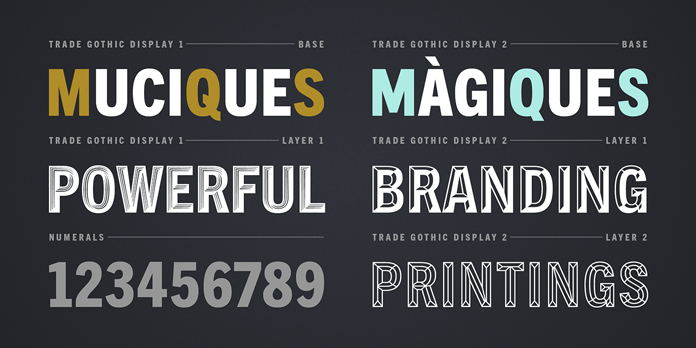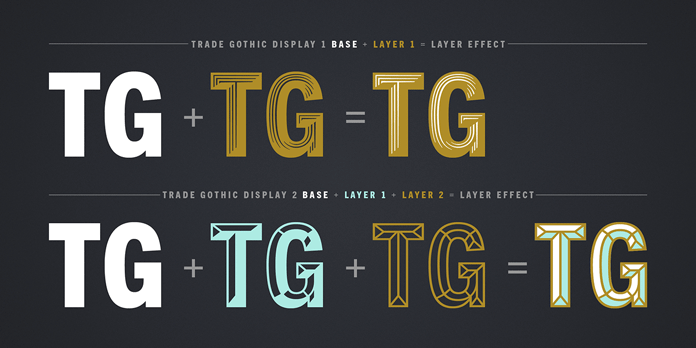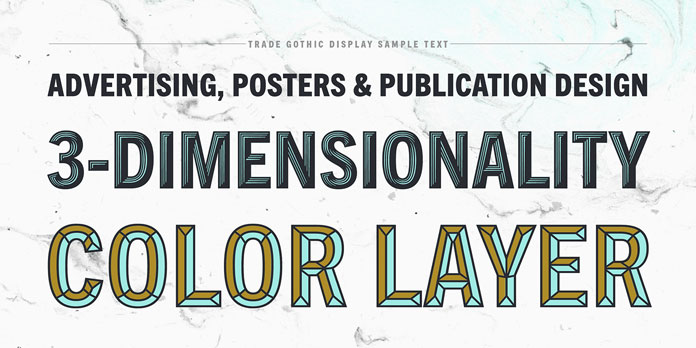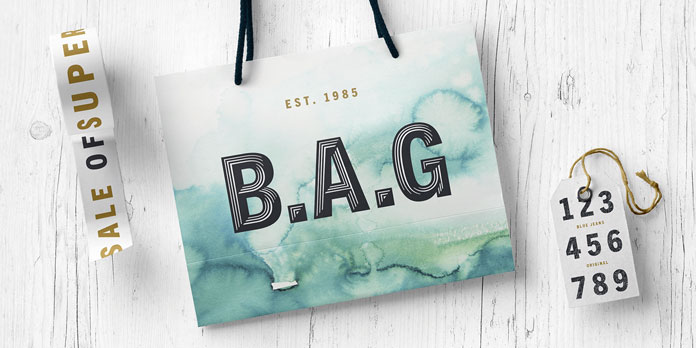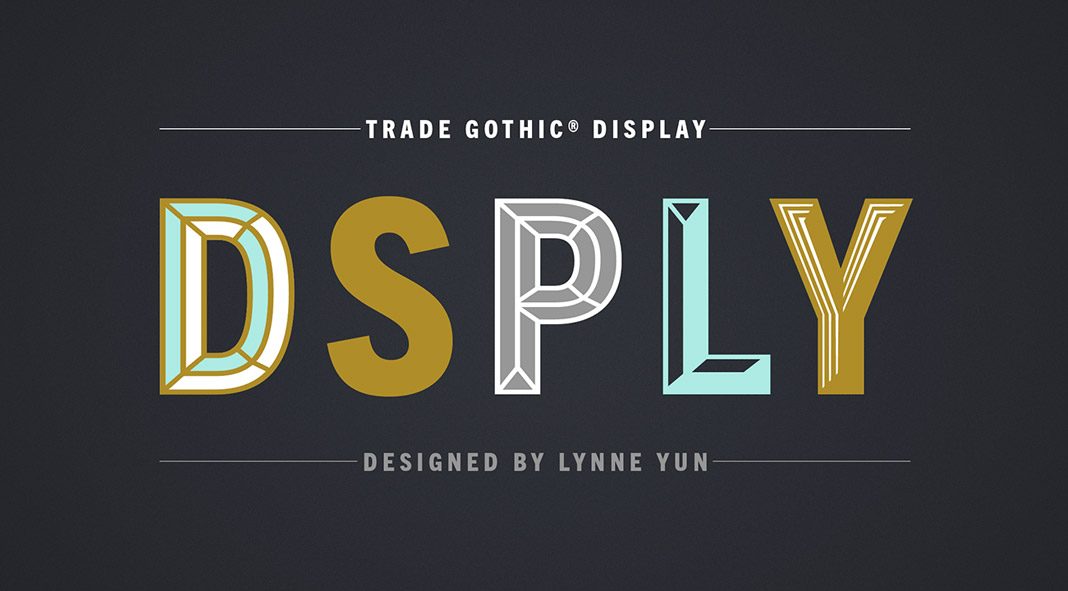
Trade Gothic Display, a lively and compelling font family from Monotype.
Published by foundry Monotype in 2017, the Trade Gothic Display font family has been designed by Lynne Yun in collaboration with Jackson Burke. This beautiful family takes full advantage of color as well as diverse beveled and embossed styles. It is well suited for advertising, branding, poster and publication projects. For further information on all features, just have a look at the images below or click on the following link. Please note, the Trade Gothic Display font family is currently available as an introductory offer on MyFonts.